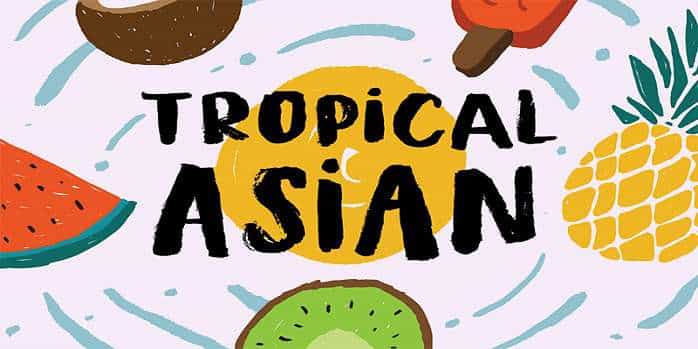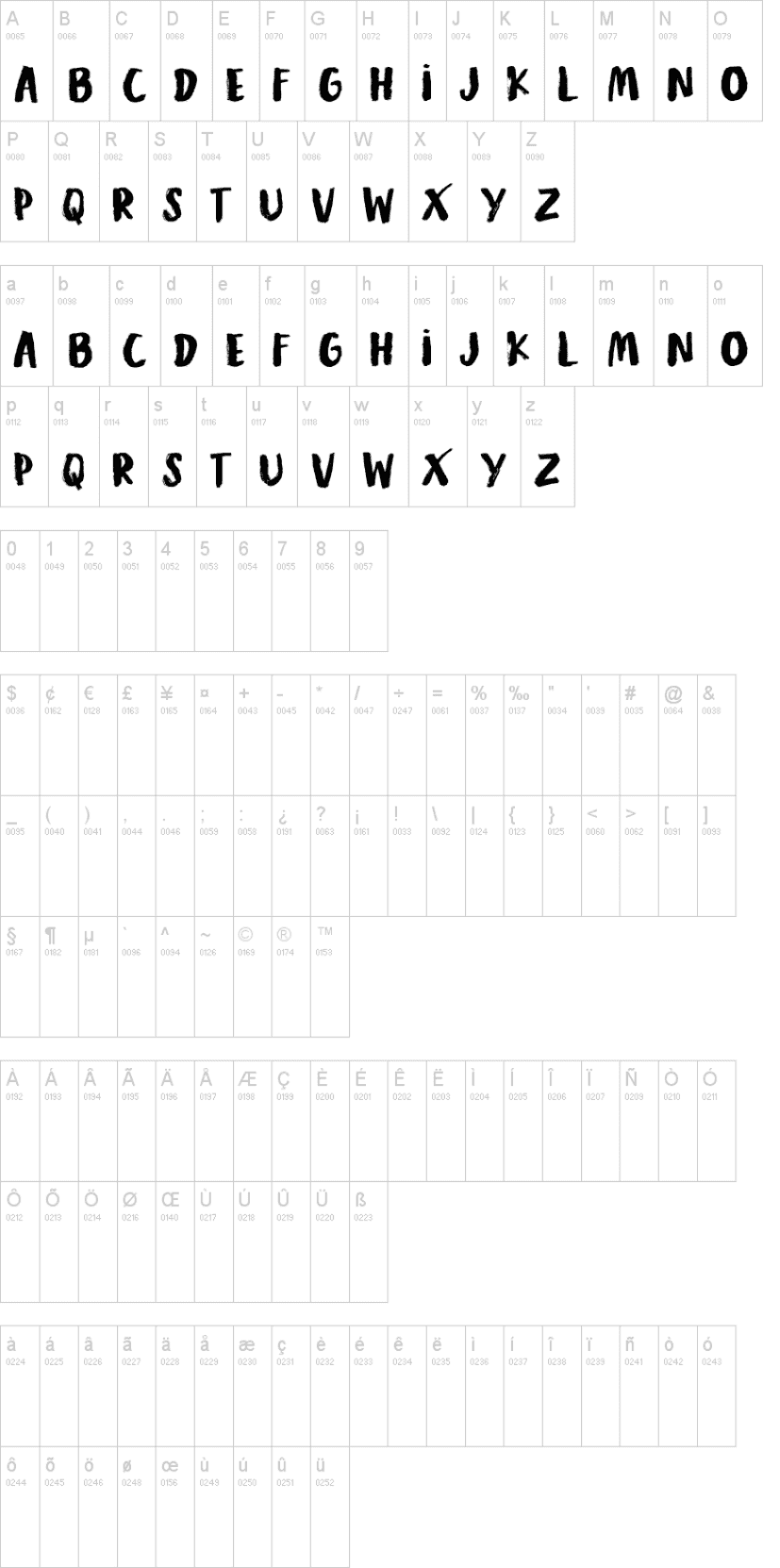
Tropical Asian, taken from the sun set and freedom of careless brush and ink play on paper. Ideal for embracing summer and your relaxed fun branding projects. Vibin’ up this font is the Teamed up with the Stylistic Alternates for each Uppercase and Lowercase letters, Multilanguage Support, and Vector Illustration pack.